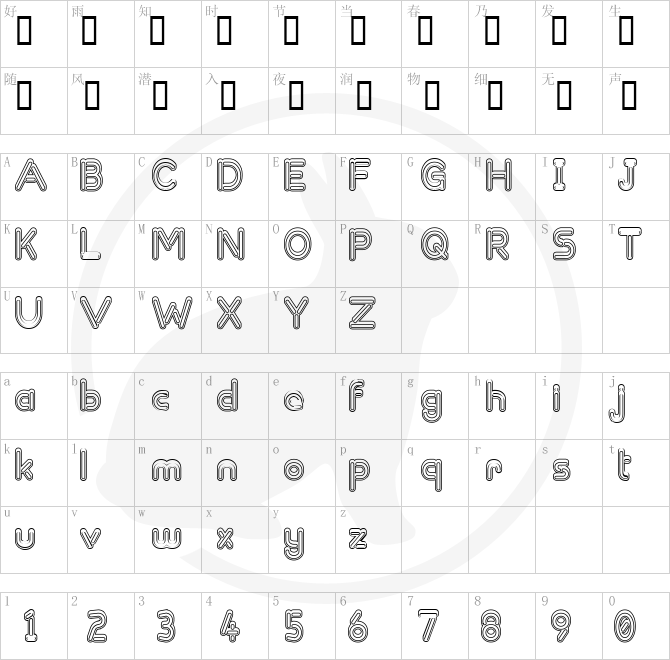
- Font Name:Zapped Sticks
Zapped-Sticks.ttf is a very beautiful artistic font, Zapped-Sticks.ttf is widely used in the design and printing of various books and pictures,Zapped-Sticks.ttf has a strong visual impact,Zapped-Sticks.ttf is a commonly used font in newspapers, magazines and books, and is used in posters, e-commerce Poster design, store design, logo design, font design and other fields.Zapped-Sticks.